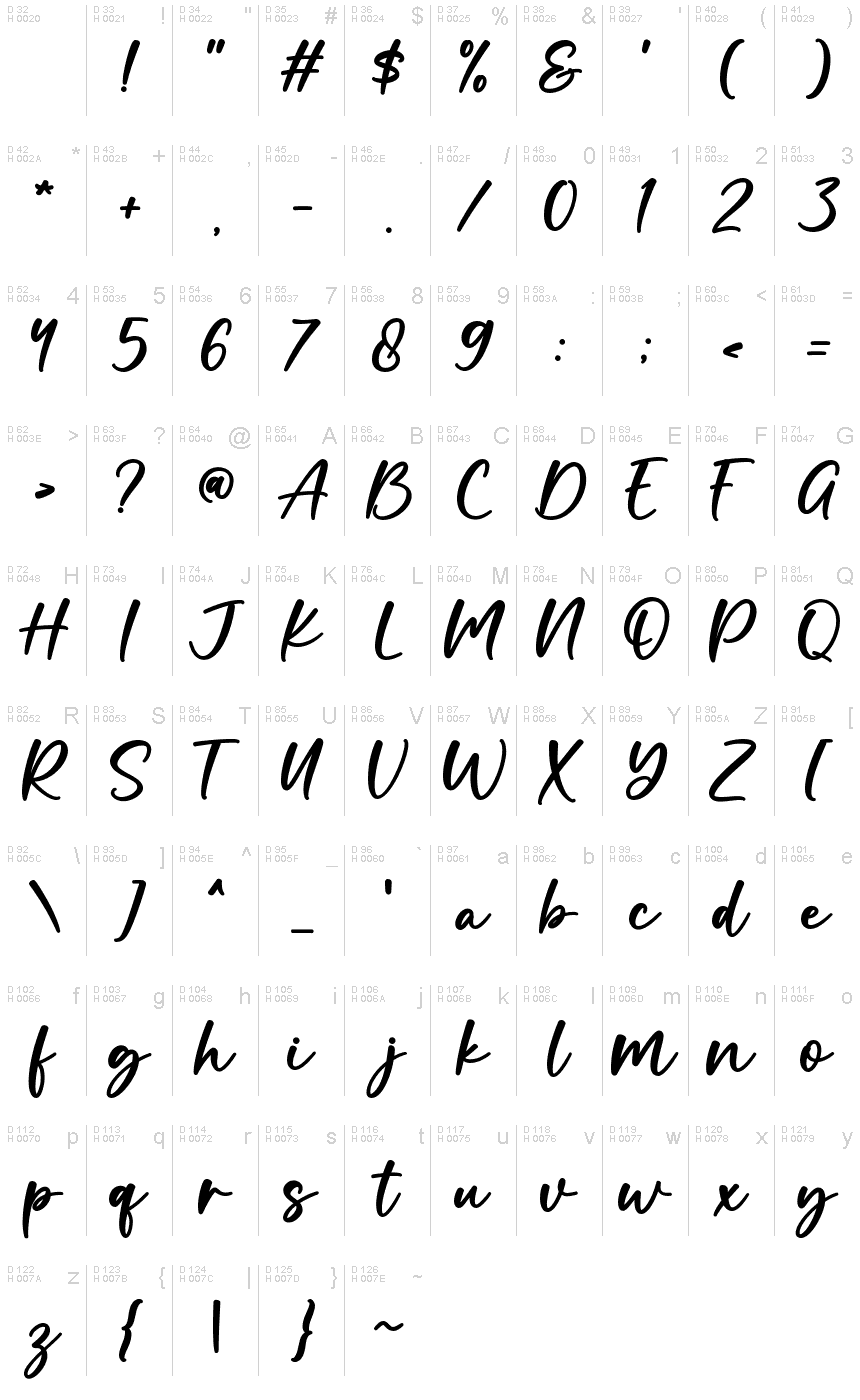
Marisha
Marisha, the stunning handwritten script font created by Graphix Line Studio, is the perfect choice for any project in need of a touch of elegance and sophistication. Its flowing curves and delicate strokes create a sense of grace and femininity that will elevate any design. Whether you're designing wedding invitations, product packaging, or social media graphics - Marisha's semi-bold font is sure to impress. With its wide range of font widths available, this versatile typeface can be used for both headlines and body text. Give your designs a touch of refined beauty with Marisha today!